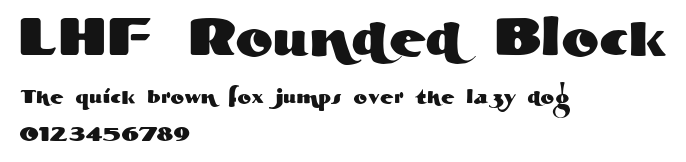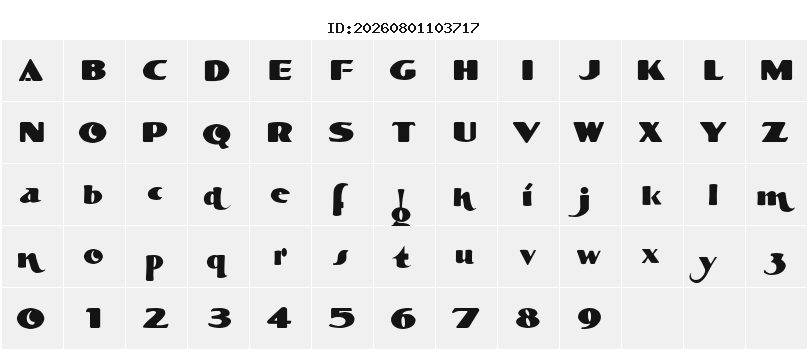
• Font Name: LHF Rounded Block
About LHF Rounded Block.ttf
LHF Rounded Block.ttf is a modern, elegant sans-serif font designed for ultimate readability and visual harmony. Perfect for branding, headlines, web design, and print materials.